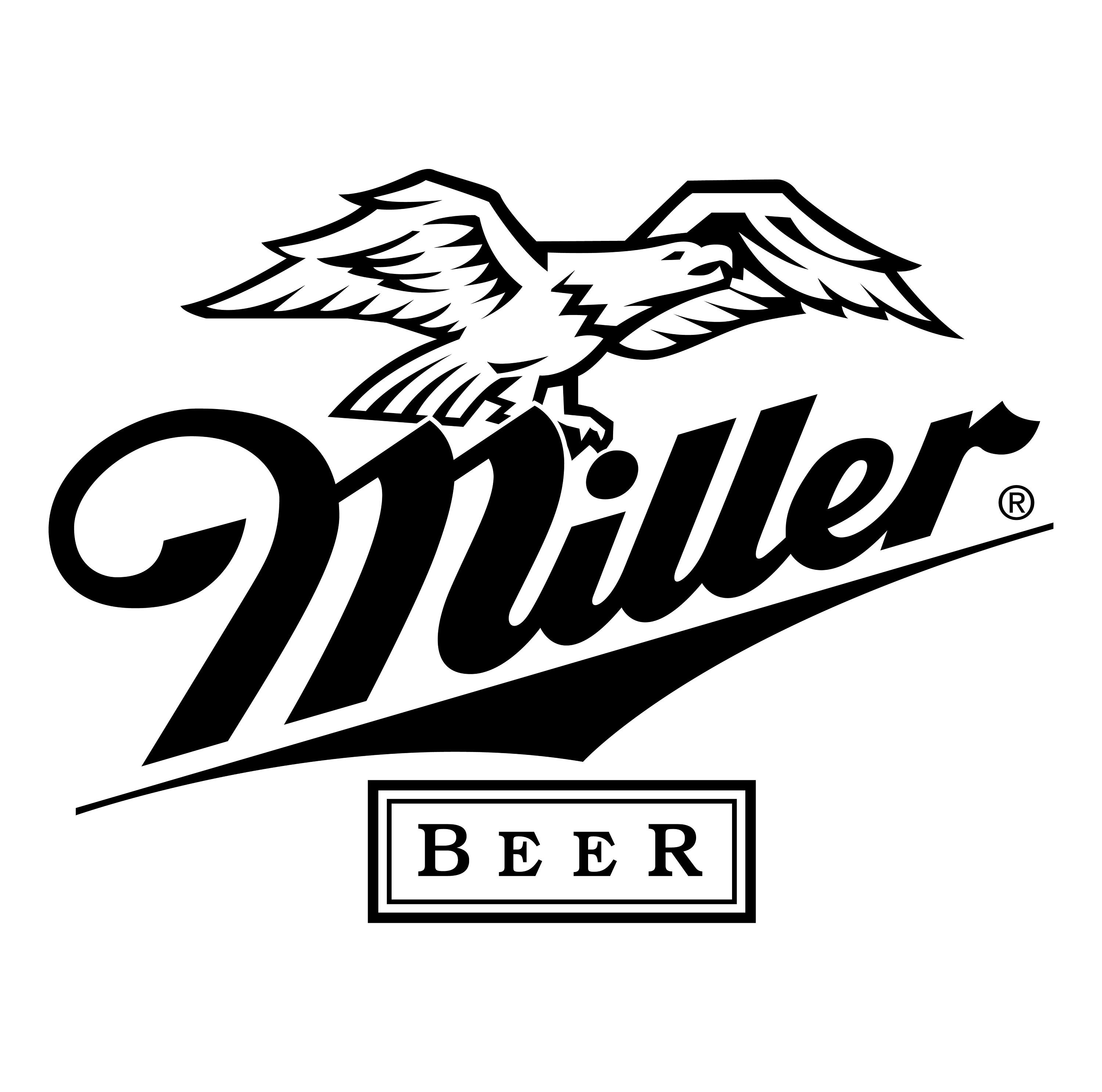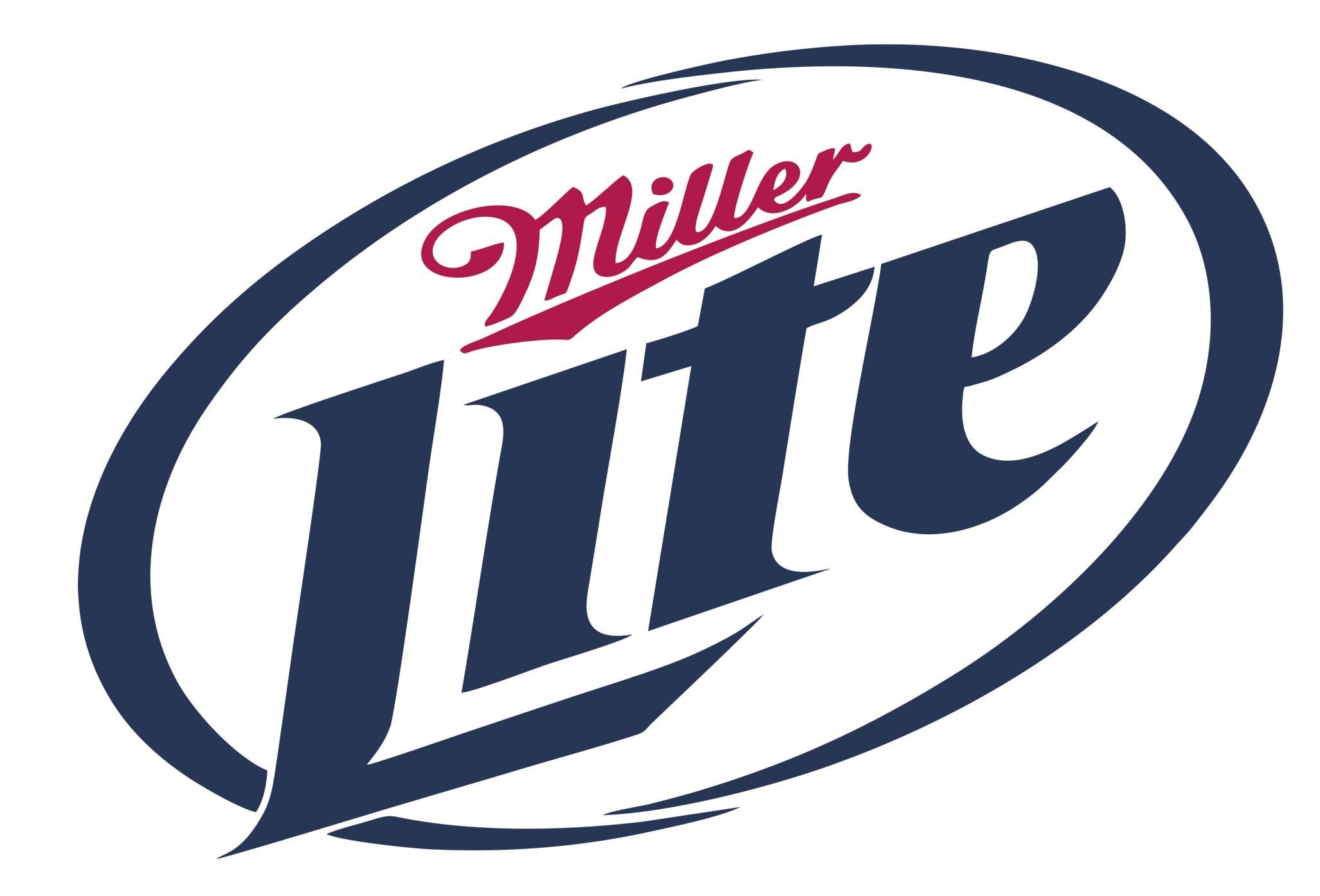
Miller Lite Beer Font
Miller Lite Beer Font - For 'miller' draft beer is a bold script suitable for logos, letterheads & headlines and was inspired by the lettering used by miller.